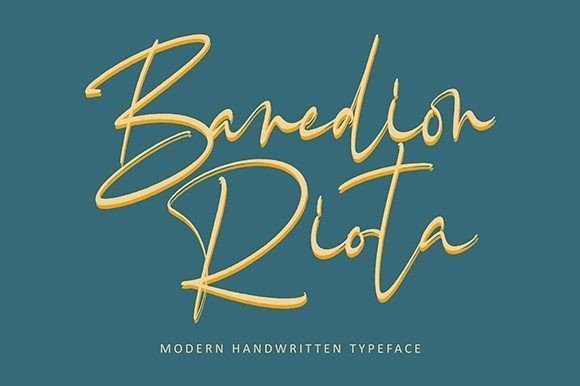
Benedion Riota Font: Elevate Your Creations with this Modern Handwritten Script Font
In the world of typography, a font can make or break a design. It’s the perfect blend of style, elegance, and personality that can elevate a creation from ordinary to extraordinary. If you’re a designer, craftsperson, or simply a DIY enthusiast, you’re in luck! Introducing Benedion Riota, a modern handwritten script font that’s about to become your new favorite asset.
What is Benedion Riota Font?
Benedion Riota is a beautifully crafted, modern handwritten script font that’s designed to add a touch of sophistication and elegance to any project. Its flowing lines, intricate details, and unique character make it the perfect choice for a wide range of applications, from branding and advertising to packaging and digital media.
Key Features of Benedion Riota Font
• Modern Handwritten Script Font: Benedion Riota boasts a fresh, contemporary look that’s perfect for designers and craftspersons looking to add a personal touch to their work.
• Extensive Glyph Set: With Benedion Riota, you’ll get access to a vast array of glyphs, including ligatures, alternates, and swashes. This means you can experiment with different combinations to create unique and eye-catching text styles.
• Multilingual Support: This font supports multiple languages, making it an excellent choice for global brands, international designers, or anyone working on multilingual projects.
Why Choose Benedion Riota Font?
So, what sets Benedion Riota apart from other fonts on the market? Here are just a few reasons why designers and craftspersons are falling in love with this incredible font:
• Versatility: Benedion Riota is incredibly versatile, making it suitable for a wide range of applications, from elegant branding and advertising to creative packaging and digital media.
• Elegance: This font exudes elegance and sophistication, making it perfect for high-end designs, luxury brands, and refined craft projects.
• Personality: Benedion Riota has a unique personality that shines through in every character, making it an excellent choice for designers and craftspersons looking to add a personal touch to their work.
• Branding and Advertising: Use Benedion Riota to create stunning logos, business cards, and ad campaigns that exude elegance and sophistication.
• Packaging Design: Add a touch of luxury to your packaging designs with Benedion Riota’s beautiful, flowing lines and intricate details.
• Digital Media: Use Benedion Riota to create eye-catching social media graphics, blog posts, and website headers that showcase your brand’s personality.
• Crafting and DIY Projects: Add a personal touch to your craft projects, such as handmade cards, gift tags, and scrapbooking pages, with Benedion Riota’s unique and elegant script.
In conclusion, Benedion Riota is an exceptional modern handwritten script font that’s sure to elevate your designs and craft projects to new heights. With its PUA encoding, extensive glyph set, and elegant design, this font is an incredible asset for any creative. Whether you’re a designer, craftsperson, or DIY enthusiast, Benedion Riota is the perfect choice for anyone looking to add a touch of sophistication and personality to their work. So why wait? Get your hands on Benedion Riota today and start creating something truly special!